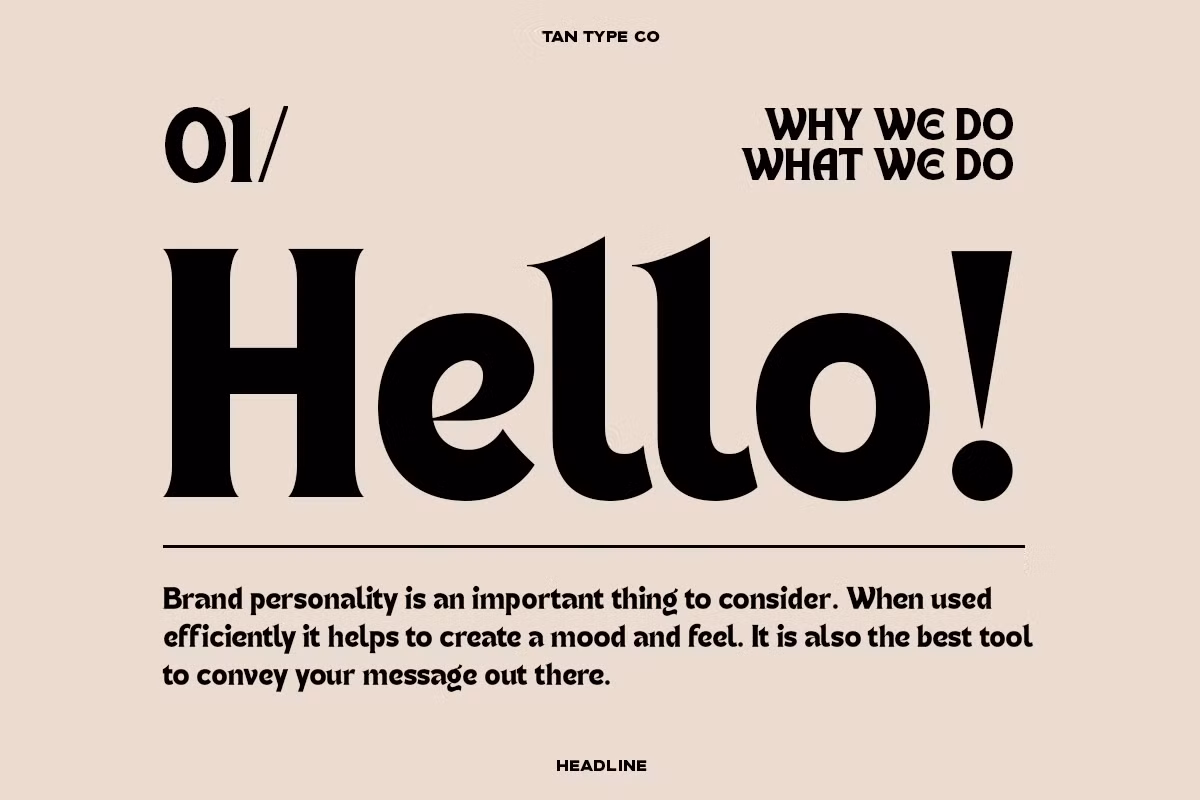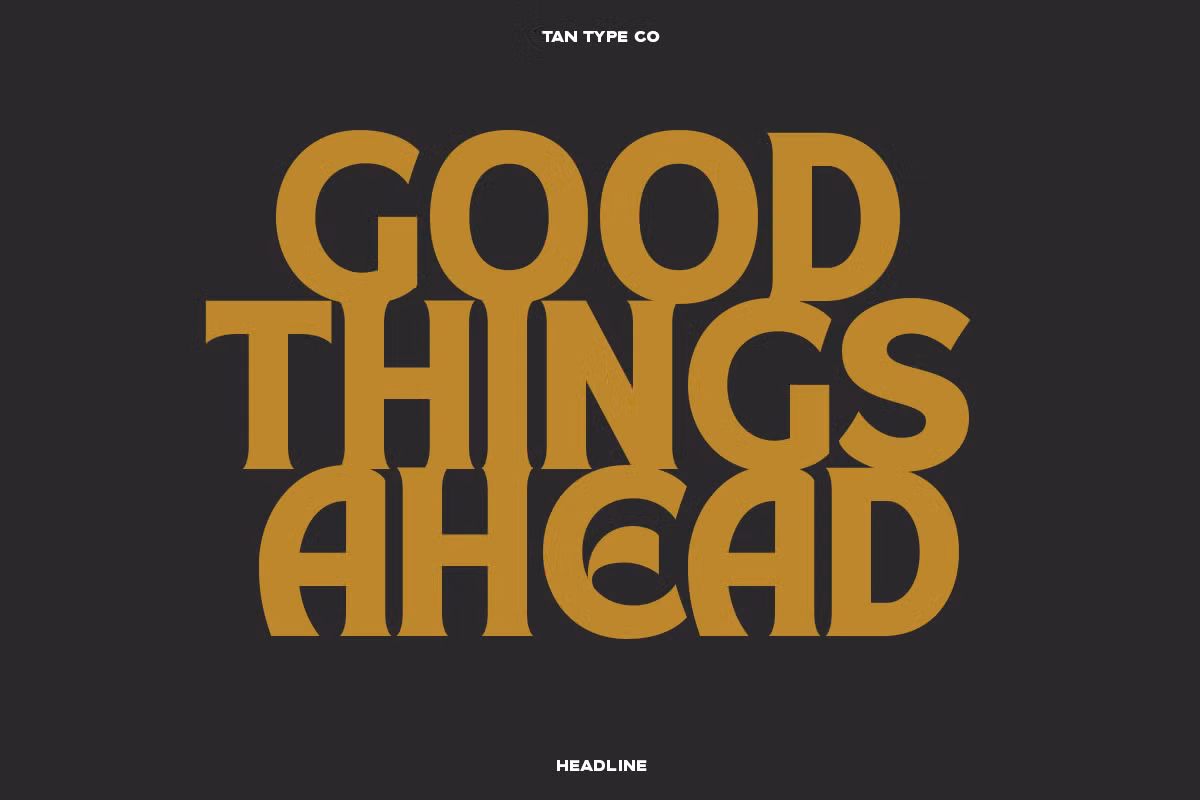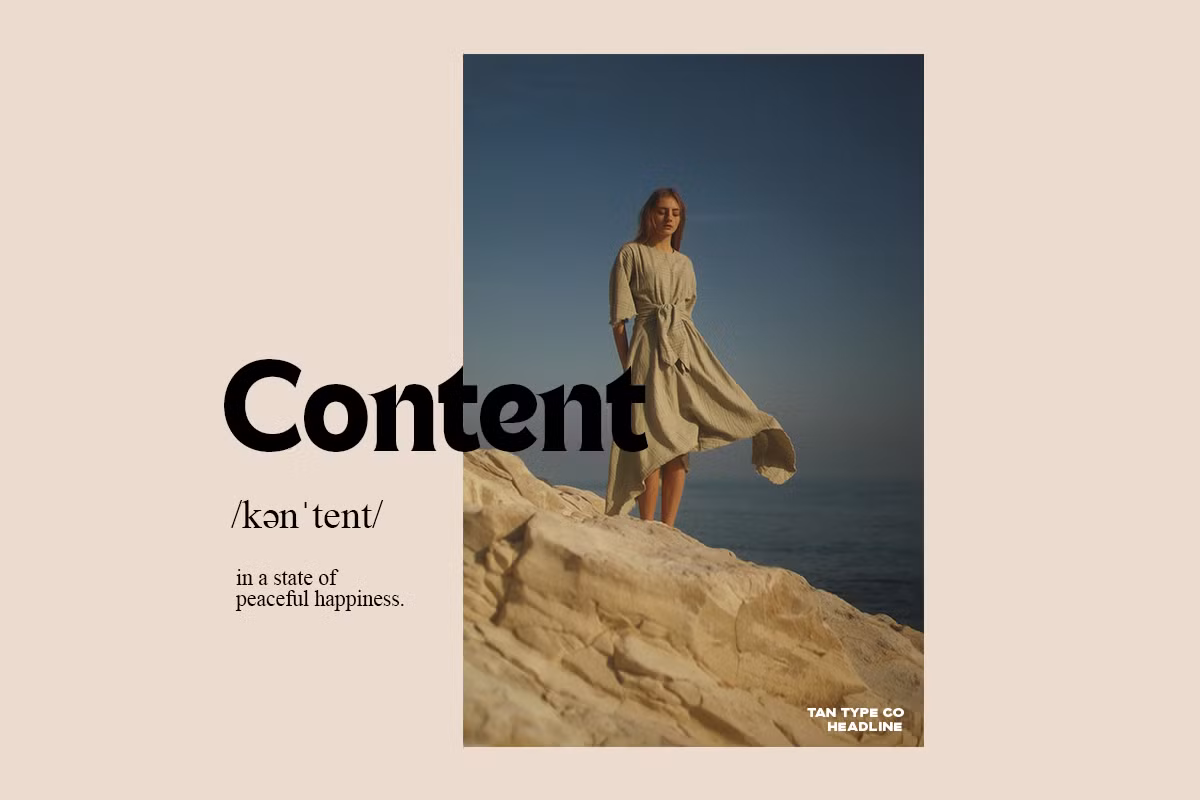
TAN Headline specimen and verified specs
- Styles: 1 (Regular)
- Glyphs: 337
- Language support: Basic Latin (English), Western European, Central & Eastern European
- OpenType features: stylistic alternates, kerning
- Designer: Novia Jonatan (TanType Co.)
A heavy serif with hand-cut quirks
TanType calls TAN Headline “simple-looking” and “retro inspired”, with “enough twist to make it interesting”. The specimens on this page, rendered from the licensed font files, show a dark, tightly spaced serif with low contrast between thick and thin. Instead of separate bracketed serifs, the stems flare out at their ends, so each vertical looks slightly pinched in the middle, a little like lettering cut from paper or carved in wood.
The twist is clearest in the capitals. The A has no pointed apex: it is a rounded arch, and the E is a round, open shape with a curled bar rather than three square arms. Together they recall uncial and Arts and Crafts lettering more than a newspaper serif. The K’s arm curves outward, the X is drawn like a looping script x, and the F’s top arm finishes in a curl.
In the lowercase, the d’s ascender is cut at a slant, the i carries a large round dot, and the a has a tilted, teardrop-shaped counter. The figures are heavy and lining, with a 4 whose diagonal bends instead of running straight. Small symbols are scaled down, the # in particular, so they don’t compete with the letters. At poster size the dense black shapes hold together well; small, the tight spacing and dark colour will start to clog.
- Styles: one Regular, with no lighter weights or italic.
- Glyphs: 337.
- Version: 1.000; not a variable font.
- Designer: Novia Jonatan, per the font files, for TanType Co.
The TAN Headline font covers Basic Latin plus Western European and Central and Eastern European characters, so French, German, Spanish, Portuguese, Polish, Czech and Hungarian headlines can be set without missing accents. Cyrillic and Greek are not included.
Only two OpenType features are built in:
- Kerning, stored spacing corrections for particular pairs such as “Te” or “AV”. Nearly every app applies it automatically.
- Stylistic alternates, extra drawings of some characters held inside the font. You pick them from the Glyphs panel in Illustrator, InDesign or Photoshop, from the Glyph Browser in Affinity apps, or by switching on alternates in Figma’s type settings.
Posters, mastheads and partner fonts
A heavy retro serif like this earns its place on a short line set big: a magazine or zine masthead, a vintage-style event poster, a craft beer or coffee label, a book cover title, a record sleeve, or a shop sign. Keep it to a few words per line and let a quieter family handle everything else.
- Archivo for body copy; its sturdy grotesque shapes hold up next to the heavy display letters.
- Literata when you need a serif for longer reading, such as an article under the masthead.
- Space Mono for prices, dates and small print if you want a typewriter note.
Does TAN Headline have a bold or light weight?
No. It is a single Regular style, already heavy, so pair it with another family for hierarchy.
Who designed TAN Headline?
Which free font looks most like it?
Fraunces at a heavy weight comes nearest, though it lacks the rounded A and E.